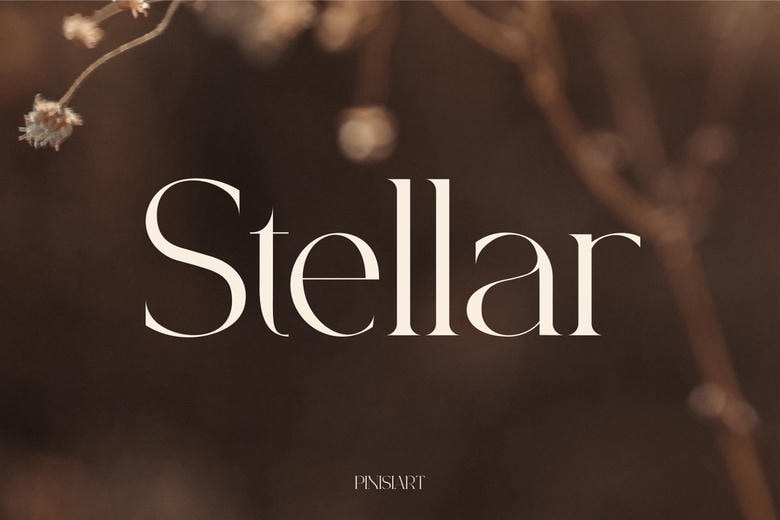
Stellar Font
Stellar Font is not only a typeface, it is a visual accented which makes any creative work turn into a step higher. The font can easily be described as a triumph of marriage between minimalistic and refined features because the resulting shapes of this typeface are expressive and the correct proportion is found.
Additionally, its design looks great in a natural way, so that each word seems purposeful and trendy. Let Stellar bring flair and focus to your content regardless of whether it is a social media campaign, branding, or to a luxury selling proposition. Thereby, the projects of yours will be polished and professional all the time.
Stellar Serif Font